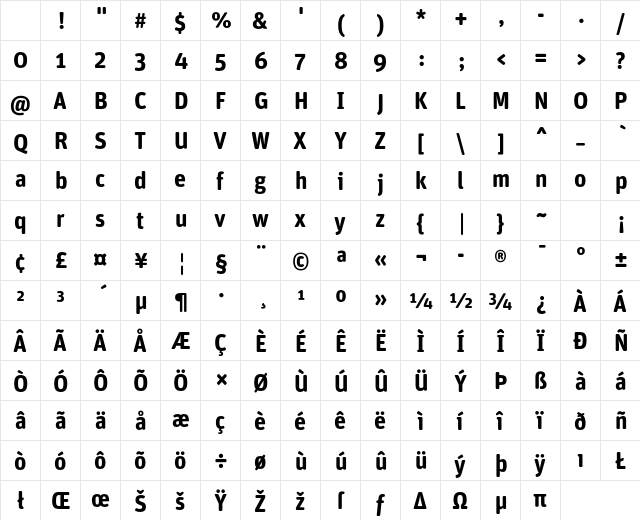
Complete Unit Rounded OT Bold glyph index. Displaying only characters natively supported by Unit Rounded OT Bold font.
Unit Rounded OT softens its letterforms with rounded terminals, giving it an approachable, friendly quality that works well in consumer-facing and digital contexts. Its bold stroke weight gives it real presence on the page.
Font Pairing: Pairs well with a rounded or humanist sans for body copy, maintaining the friendly tone without relying on Unit Rounded OT to carry extended reading.
Pro Tip: Use Unit Rounded OT for UI elements, app interfaces, and anywhere a friendly, approachable tone needs to be maintained without sacrificing clarity.